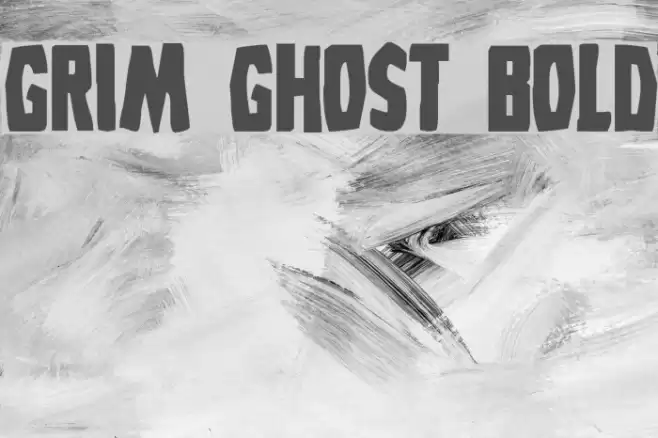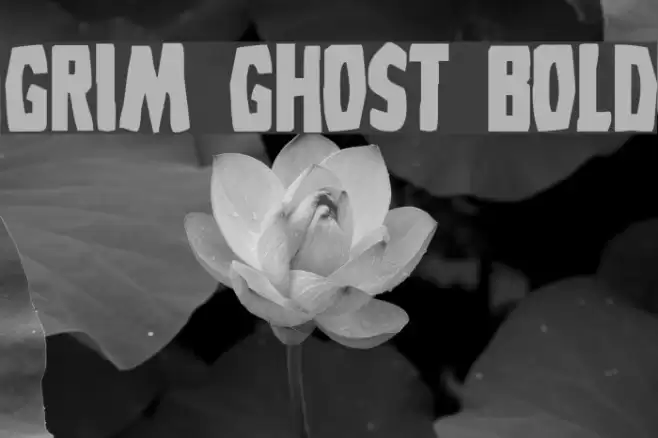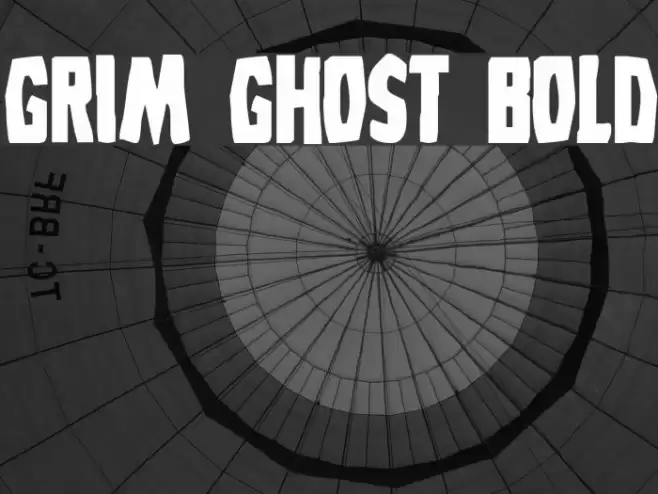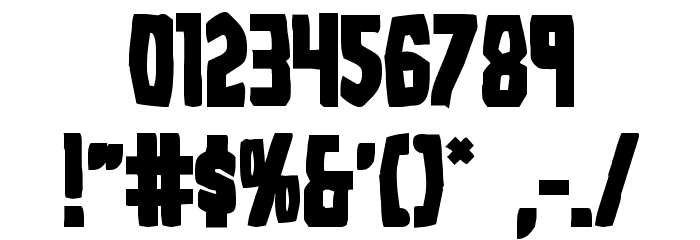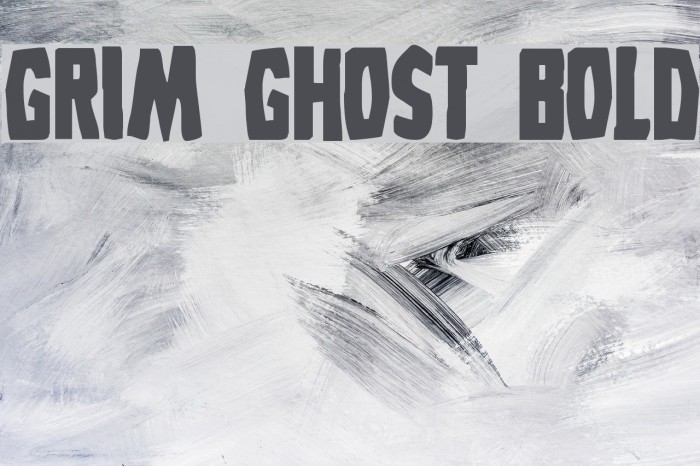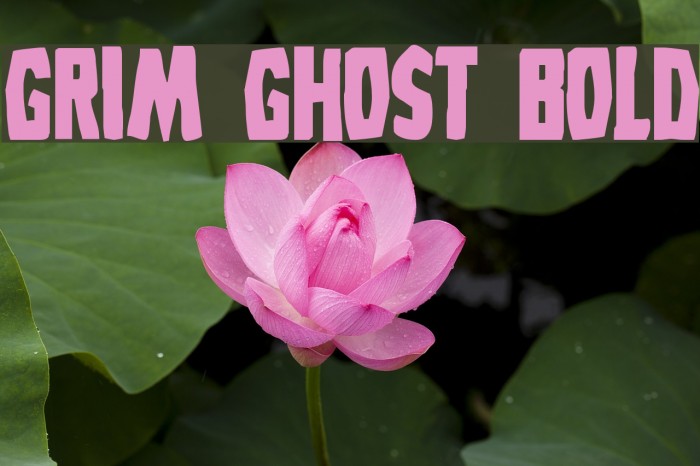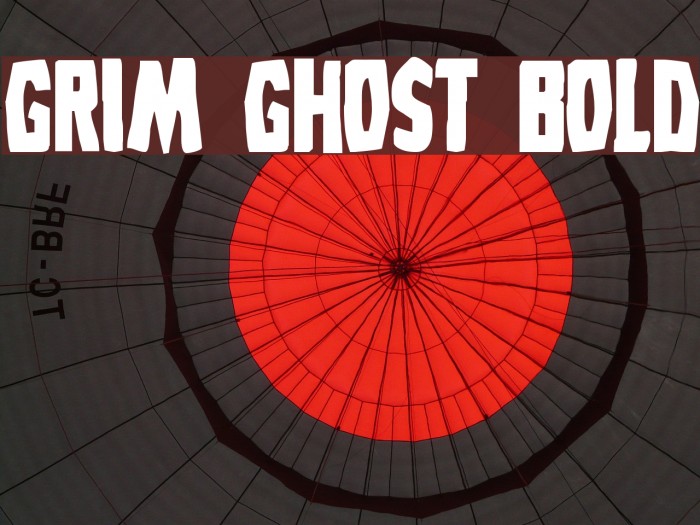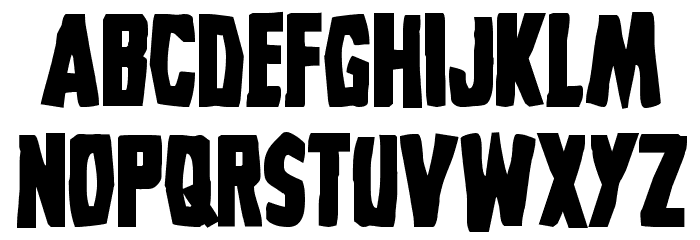
Grim Ghost Bold Font
Grim Ghost Bold Description
This font features a bold and rugged design with a hand-drawn appearance. The characters are uneven and slightly distorted, giving them a ghostly, eerie feel. The uppercase letters are prominent and impactful, while the lowercase letters maintain the same boldness. Numbers and special characters follow the same style, ensuring consistency across all elements. The font's unique style makes it stand out, with thick strokes and irregular edges that add to its distinctive character. It's perfect for projects that require a bold, eye-catching typeface with a touch of mystery.
A bold, rugged font with a hand-drawn, ghostly appearance from Uncategorized fonts.
- Proposed Projects: Ideal for Halloween-themed designs, posters, book covers, and any project needing a bold, spooky aesthetic.